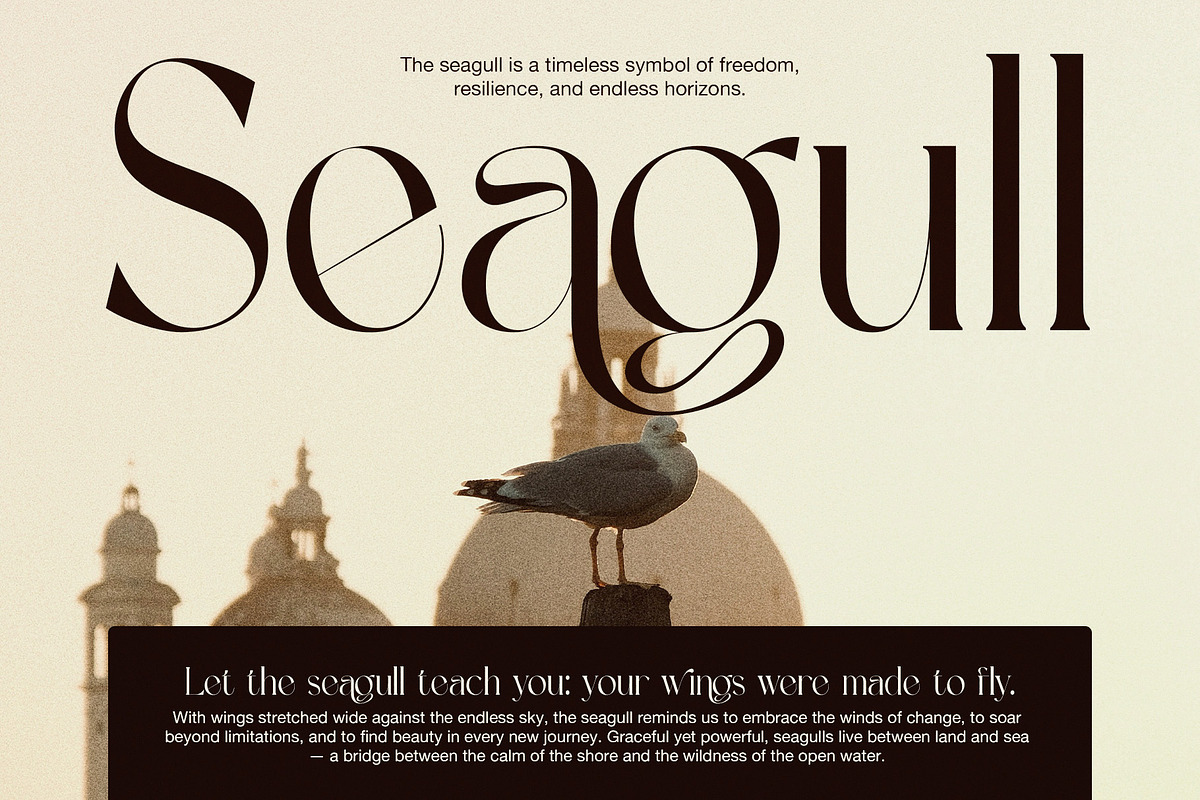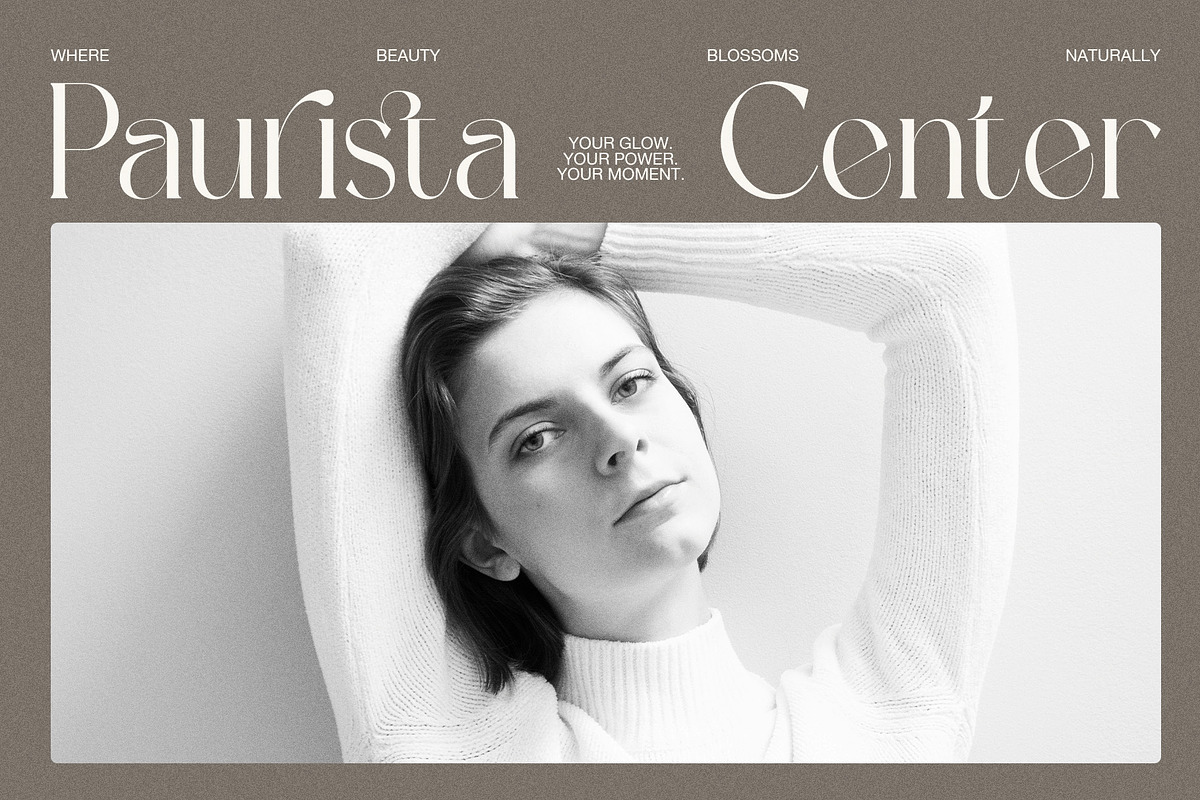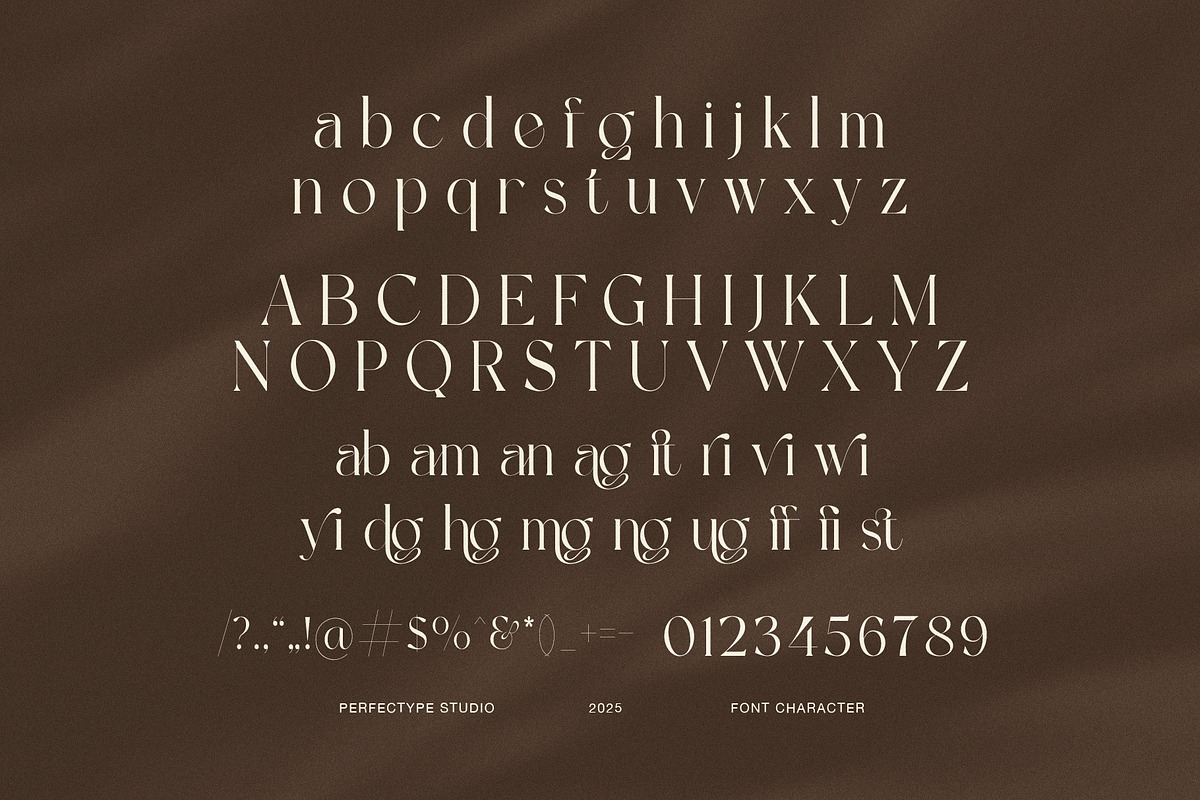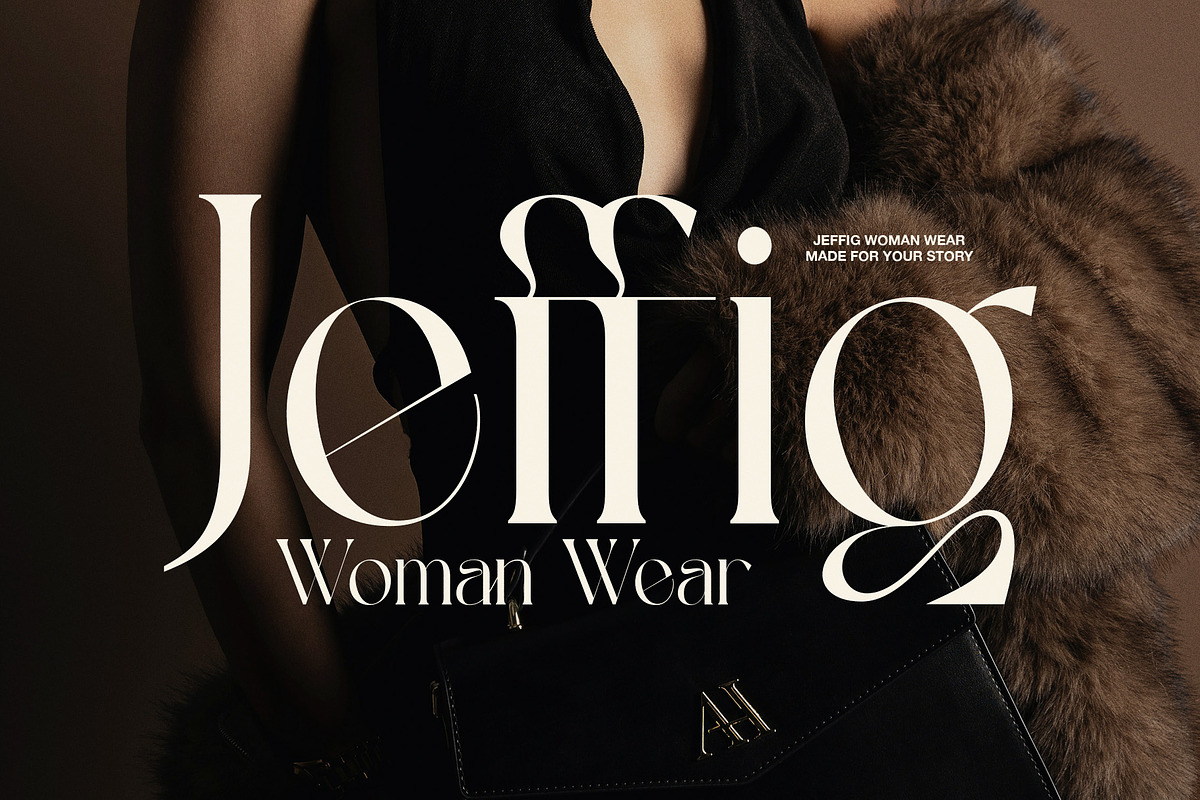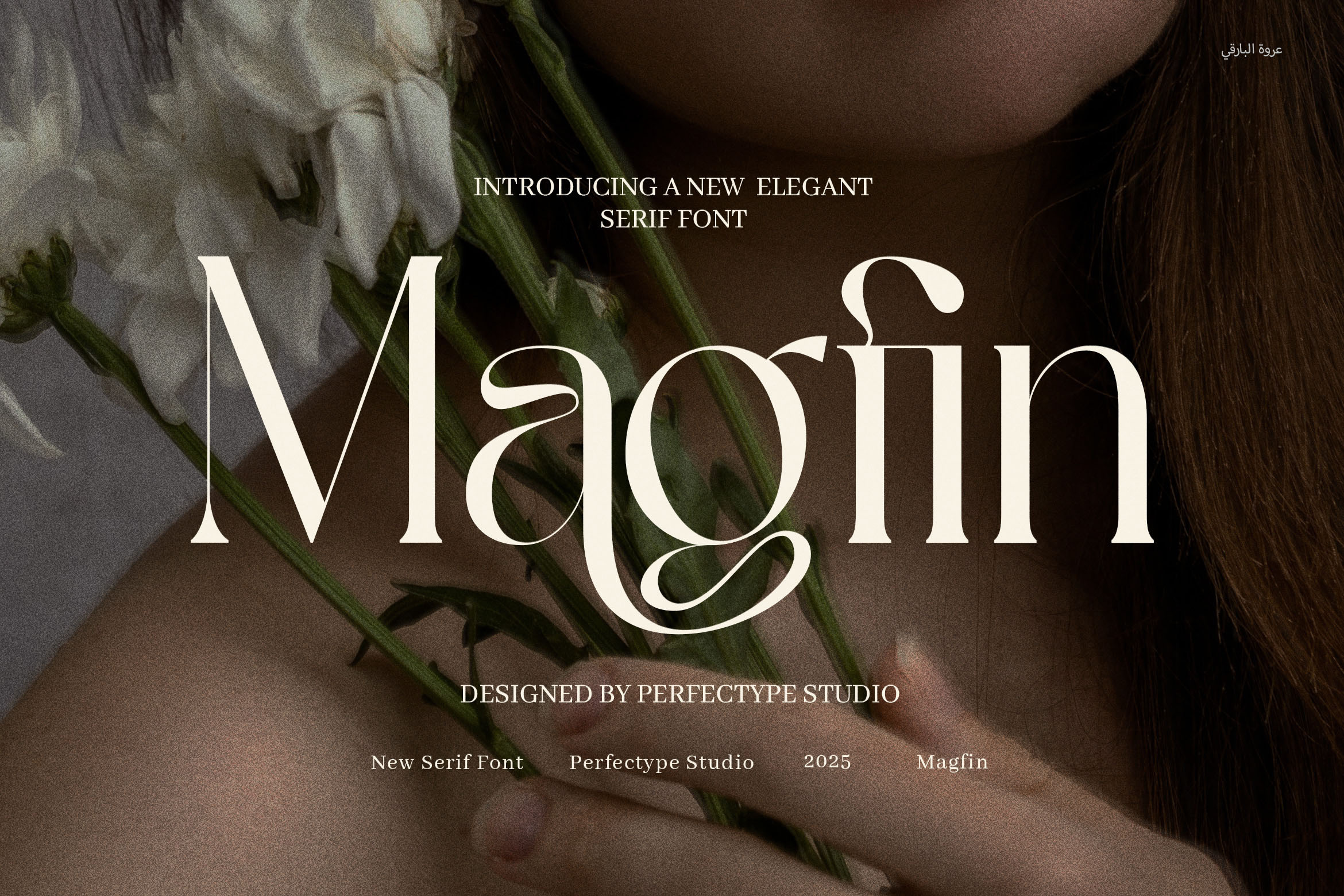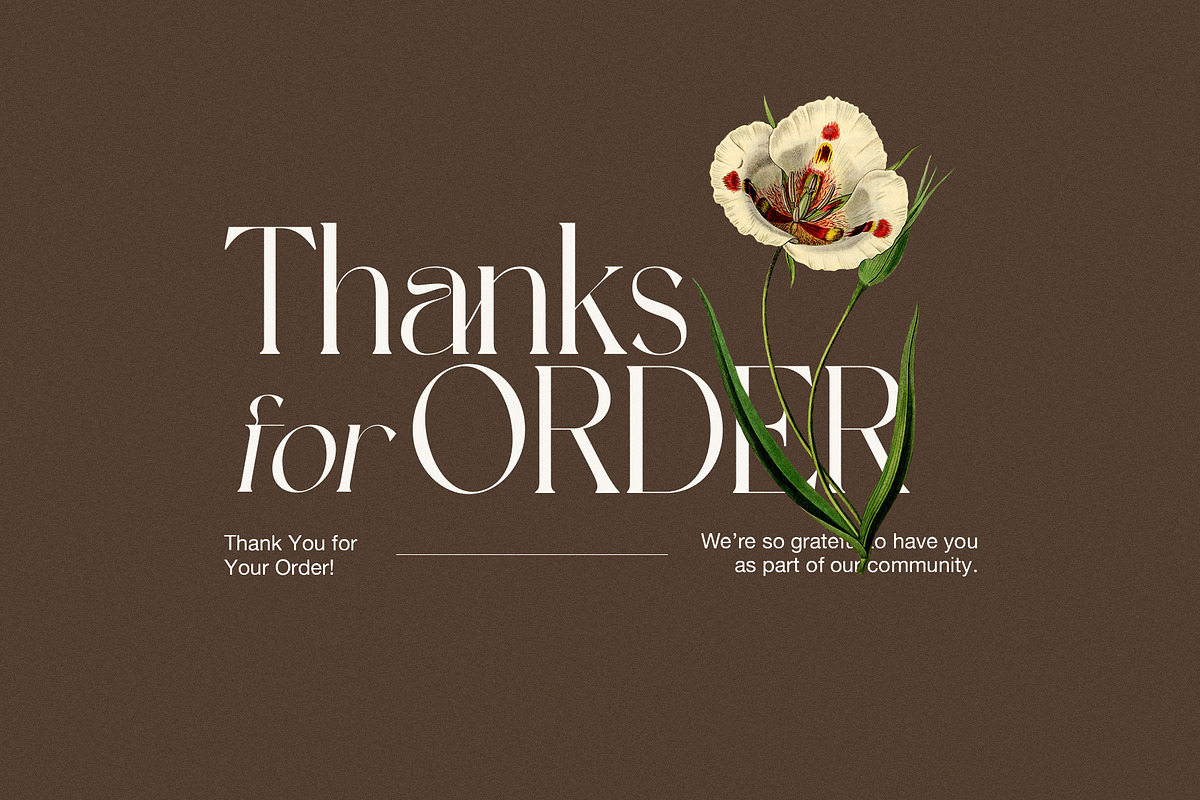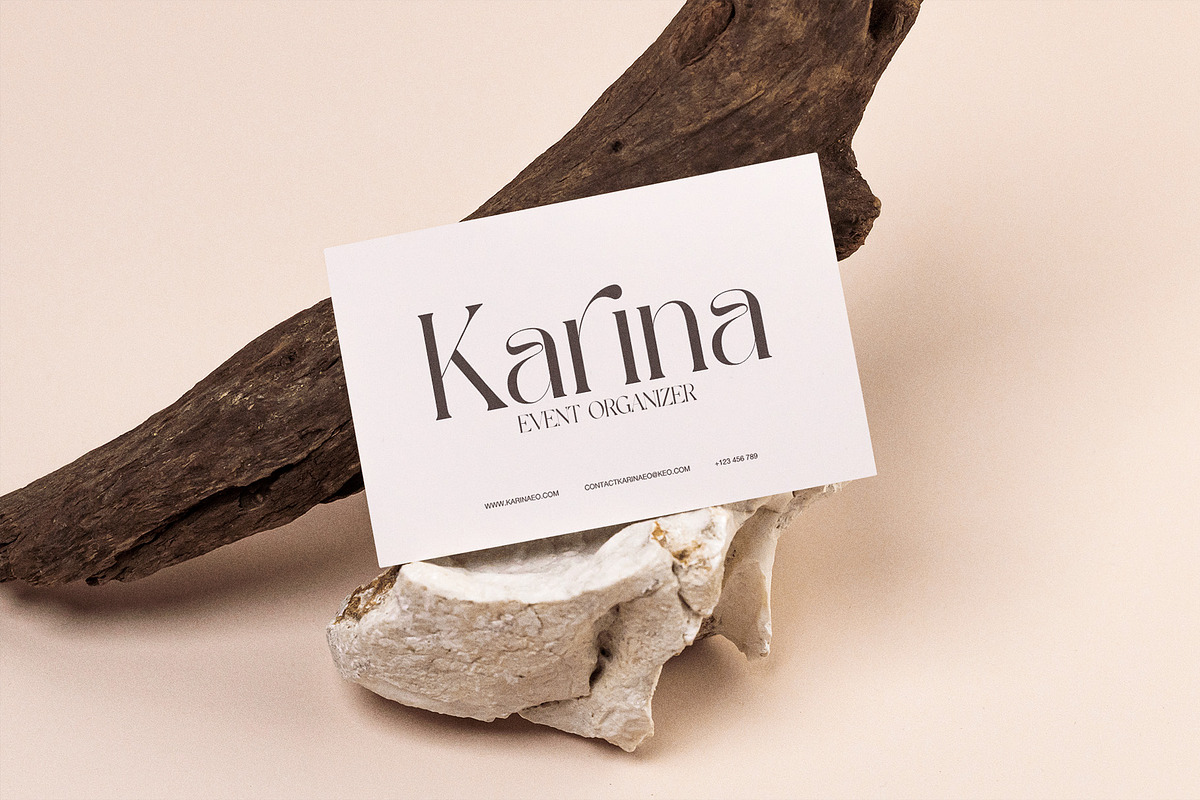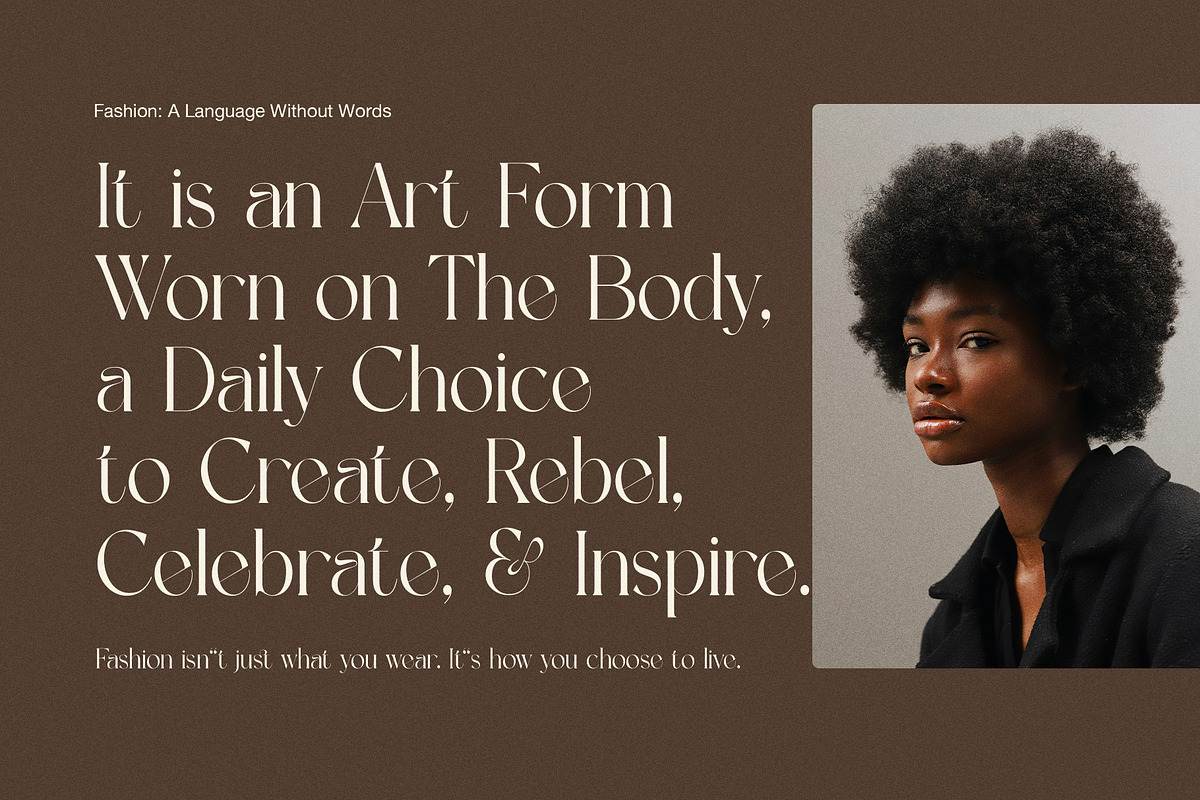
Magfin Elegant Serif Font
Magfin Elegant Serif Font is a contemporary serif typeface designed to bring sophistication, creativity, and a polished edge to your visual projects. With its elegant proportions, high contrast strokes, and signature ligatures, Magfin merges the classic beauty of serif fonts with a bold modern twist.
The charm of Magfin lies in its distinctive shape. Each character features finely tapered serifs, smooth transitions, and subtle curves that lend a sense of movement and balance. Its graceful structure is complemented by creative ligatures and a rich selection of alternate forms, allowing designers to inject character and customization into their typography. The combination of clean lines and ornate touches makes Magfin a standout choice for designs that require both elegance and personality.
Perfectly suited for display purposes, Magfin shines in large-scale text applications such as logos, brand identities, editorial headers, product packaging, and website banners. The font exudes luxury and finesse, making it an ideal match for fashion brands, cosmetics, boutique businesses, artisan products, and high-end advertising.
Magfin’s refined detailing also translates well into print and digital formats alike, ensuring your designs remain sharp and stylish across platforms. Use the alternates to create one-of-a-kind typographic treatments, or incorporate the graceful ligatures to enhance flow and cohesion in wordmarks and titles.
Its versatile nature means Magfin isn’t just beautiful—it’s functional. Whether you're designing an elegant wedding invitation, a modern magazine cover, or a minimalist food label, this font offers the right balance of clarity and creativity.